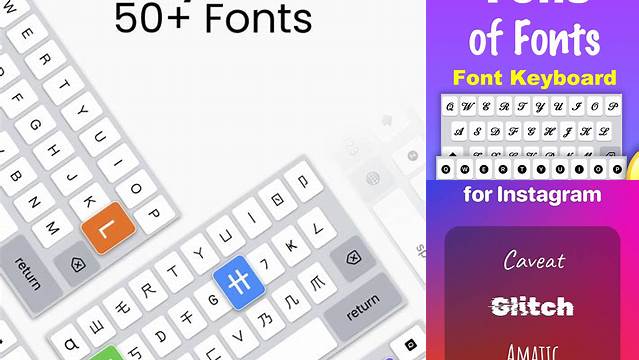
IPhone Fonts Keyboard: Ultimate Guide To Text Customization
Are you tired of the same old boring fonts on your iPhone? Do you crave a way to spice up your texts, social media posts, and overall digital presence? Well, guys, you're in luck! The world of fonts keyboard iPhone options is vast and exciting, offering a plethora of ways to express yourself in ways you never thought possible. This guide will delve into the nitty-gritty of fonts keyboard iPhone features, helping you unlock a new level of textual creativity and customization. From the simplest font changes to full-blown keyboard transformations, we'll cover everything you need to know to make your iPhone texts pop!
Why Customize Your iPhone Keyboard Fonts?
Stand Out From the Crowd
In today's digital age, where everyone is constantly vying for attention, standing out is key. Using a fonts keyboard iPhone allows you to differentiate your messages and content from the sea of generic text. A unique font can instantly grab someone's attention, making your message more memorable and impactful. Imagine your Instagram captions or TikTok posts with stylish, eye-catching fonts. You will be one step closer to building your personal brand. It's not just about aesthetics; it's about making a statement and showcasing your personality. Furthermore, in a world dominated by visual content, the use of fonts can contribute to the overall visual appeal of your content and help to create a cohesive and attractive presentation.
Enhance Readability and Engagement
While the primary goal of using different fonts is to get your text looking cool, it can also improve how people read your texts. While sticking to legible fonts is a must, it can lead to better engagement. Different font styles can make your texts easier to scan and digest, especially in long-form content. Bold fonts can highlight important information, while italics can add emphasis and flair. Using a fonts keyboard iPhone can help guide the reader's eye, making your message more accessible and enjoyable to read. This, in turn, can lead to higher engagement rates on social media, increased click-through rates on your blog posts, and more meaningful interactions in your personal communication. The goal is to create text that's not only aesthetically pleasing but also functional and user-friendly.
Personalize Your Digital Identity
Your choice of font can be a powerful tool for self-expression. By selecting fonts that resonate with your personality and style, you can create a unique digital identity that reflects who you are. Whether you prefer sleek and modern fonts, playful and quirky ones, or elegant and classic styles, there's a font out there for everyone. The fonts keyboard iPhone gives you the opportunity to curate a digital presence that is authentically you. It's like choosing the perfect outfit for your text! You can reflect your interests, values, and artistic sensibilities. Through this customization, you can create a cohesive personal brand that is instantly recognizable and memorable.
Top Fonts Keyboard Apps for iPhone
Fonts: The Ultimate Keyboard Customization Tool
When it comes to fonts keyboard iPhone options, Fonts by Liner is a popular choice. It's like having a whole font library at your fingertips. This app offers a wide array of font styles, from elegant scripts to bold, modern designs. The best part? It integrates seamlessly with your iPhone's keyboard, making it easy to switch between fonts while you're typing. The app is very user-friendly. It allows you to customize the appearance of your keyboard, including the background, key colors, and even key sounds. You can create a keyboard that perfectly matches your aesthetic preferences. Fonts also supports a variety of social media platforms and messaging apps, ensuring you can use your favorite fonts on platforms like Instagram, TikTok, WhatsApp, and more. You can make your posts stand out.
Cool Fonts: A Variety of Stylish Text Options
Cool Fonts offers another great way to inject personality into your texts. This app provides a wide collection of fonts for use across various apps. It's super easy to use. Just download the app, enable the keyboard, and you're ready to start typing in style. The app regularly adds new fonts. Cool Fonts often has creative text effects, such as text art and text decorations, that can add a unique visual touch to your messages. It allows you to transform your standard text into something truly unique and eye-catching. Whether you're looking to spice up your Instagram stories, create visually stunning Twitter posts, or simply add some flair to your iMessages, Cool Fonts has you covered.
Stylish Text: Elevate Your Text Game
Stylish Text is another excellent app for the fonts keyboard iPhone. This app specializes in providing users with a wide range of stylish and unique text options. The app boasts a diverse collection of fonts and styles. You can easily transform your text into something fun and visually appealing. From bubble letters and bold fonts to cursive scripts and more, there's a font for every occasion. You can use Stylish Text across numerous apps. It seamlessly integrates with your iPhone's keyboard, allowing you to switch fonts quickly and effortlessly. You can also create custom text decorations. The app allows you to add a personal touch to your messages and content. This makes your texts not only stand out but also reflect your unique personality and style. Stylish Text will help you level up your texting game!
How to Install and Use Fonts Keyboard on Your iPhone
Step-by-Step Installation Guide
Installing a fonts keyboard iPhone is usually a simple process, but here are the general steps:
- Download the App: Start by downloading your chosen fonts keyboard app from the App Store. Popular choices include Fonts, Cool Fonts, and Stylish Text. All these apps are free, so you won't have to pay anything.
- Enable the Keyboard: After installing the app, open the iPhone Settings app. Go to "General" > "Keyboard" > "Keyboards".
- Add the Keyboard: Tap on "Add New Keyboard" and select the fonts keyboard app you installed. It may ask for full access; this is necessary for the app to function correctly, but make sure you trust the app.
- Grant Permissions: Within the app's settings, ensure that you've granted any necessary permissions. This might include allowing access to the keyboard and enabling the font styles.
Switching Between Fonts and Using Them
- Open an App: Open an app where you can type, such as Messages, Notes, or a social media app.
Conclusion: Embrace the Power of Fonts on Your iPhone
Using a fonts keyboard iPhone is an easy way to add flair, express your creativity, and personalize your digital communication. Whether you're looking to make your texts more engaging, create a unique online presence, or simply have fun with your iPhone, the possibilities are endless. Embrace the world of fonts and start experimenting today! You'll be surprised by the difference a simple font change can make. With a little creativity and the right tools, you can transform your texts from ordinary to extraordinary. Go forth and unleash your textual creativity!